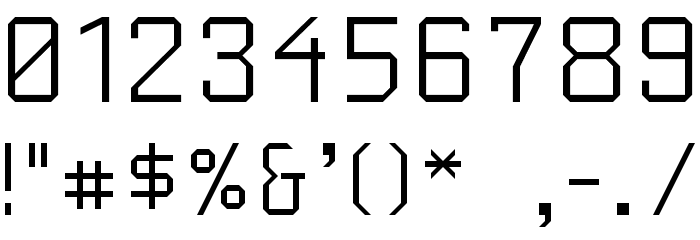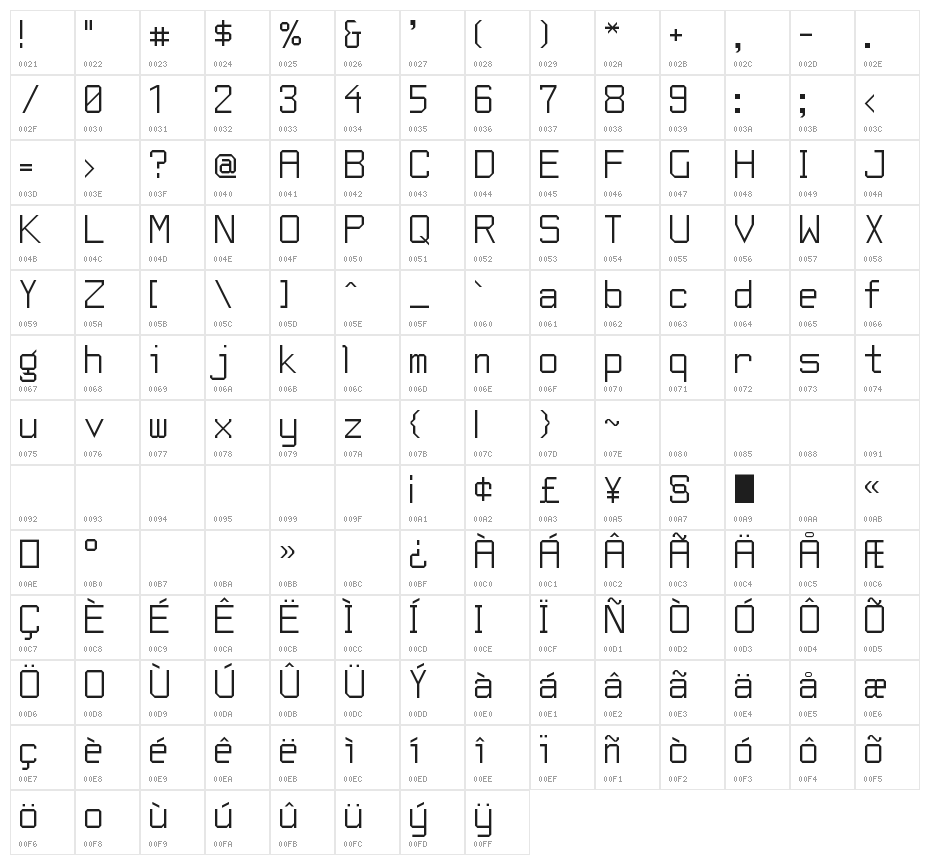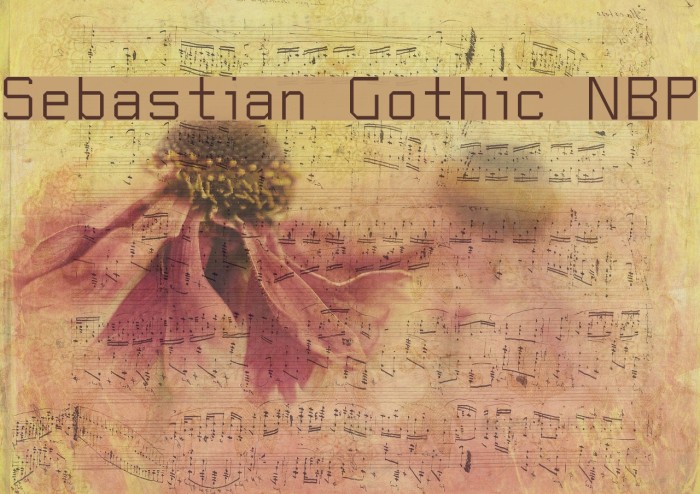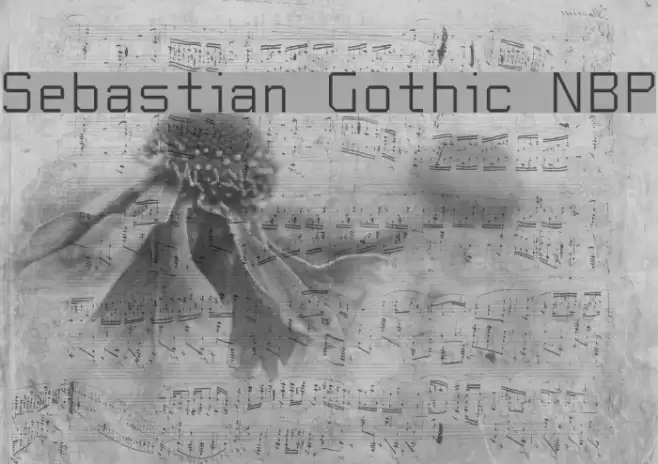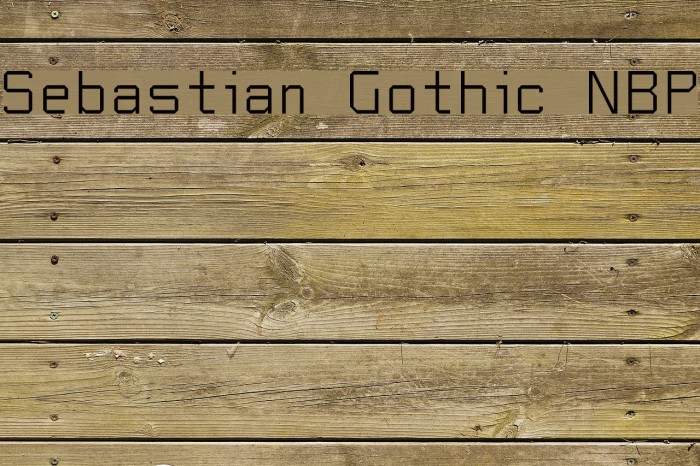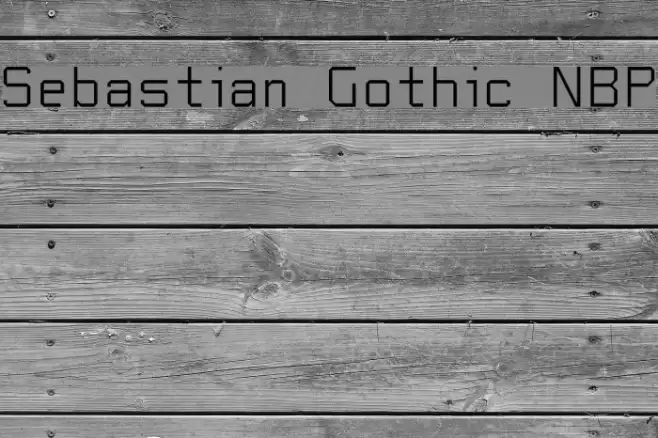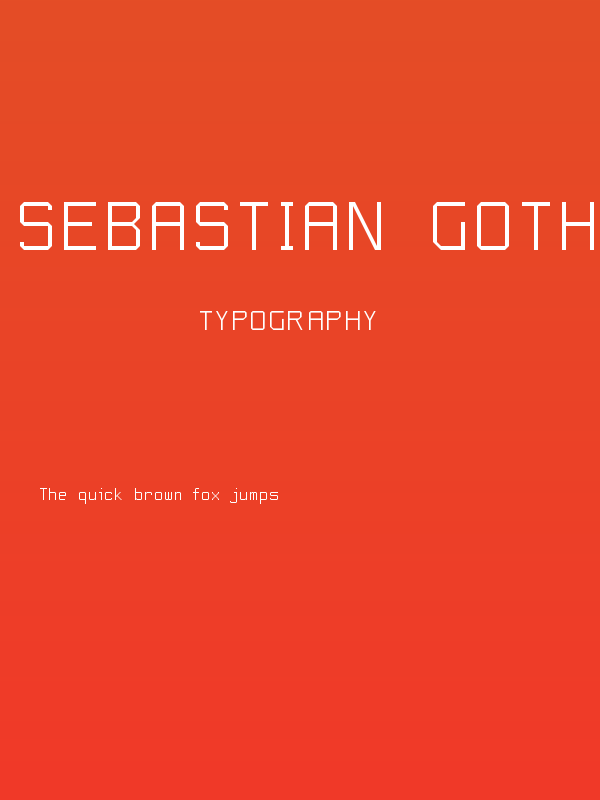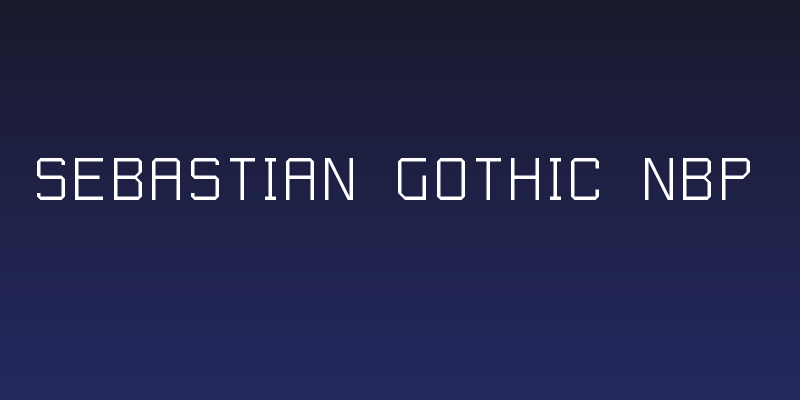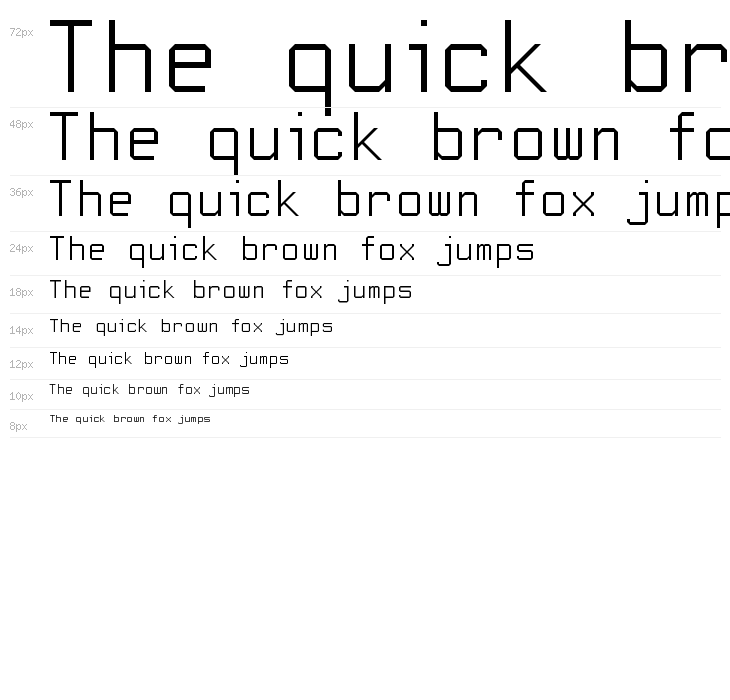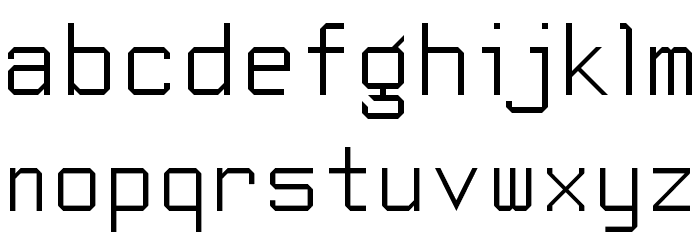
Sebastian Gothic NBP Font
Sebastian Gothic NBP Description
This font features a geometric and modern design with a distinct angular style. The characters are constructed with straight lines and sharp angles, giving it a futuristic and technical appearance. The uppercase and lowercase letters maintain a consistent height, contributing to a uniform look. The numerals are clear and legible, matching the angular style of the alphabet. Special characters are designed with the same geometric precision, ensuring a cohesive aesthetic throughout. This font's unique style makes it suitable for projects that require a modern and edgy look.